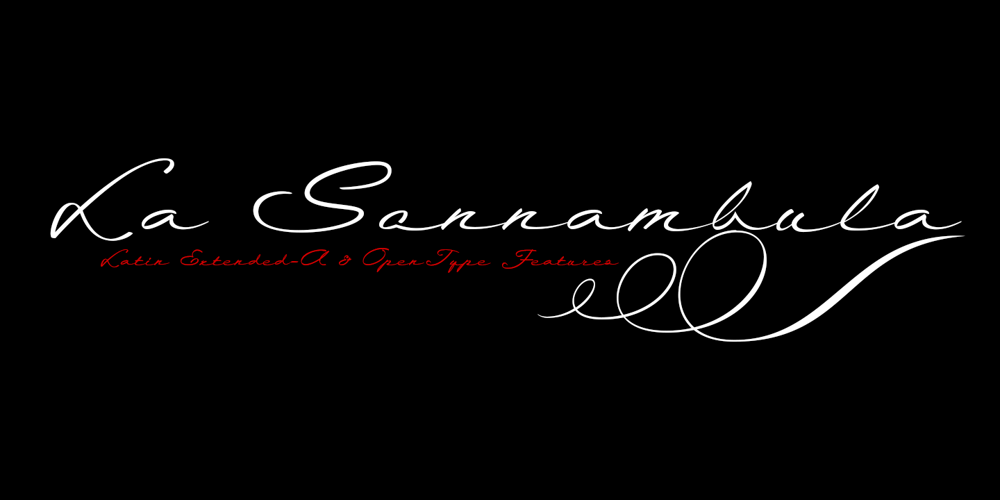
La Sonnambula Font Family was designed by Fernando Haro and published by deFharo. La Sonnambula contains 1 styles and family package options. The Sonnambula is a handwritten and expanded font with terminal ornaments, designed to write very elegant titles or calligraphic texts. The name of this typography is dedicated to the opera La Sonnambula by Vincenzo Bellini. – Use the following characters for terminal ornaments: () [] – 380 glyphs. Latin Extended-A • OTF & TTF – OpenType Functions: Discretionary Ligatures, Kerning, All Alternates, Additional languages, Standard Ligatures, Slashed Zero, Capital Spacing, Ornaments, Ordinals, Mathematical Greek, Fractions, Localized Forms. – Bitcoin symbol: b# (ligatures)